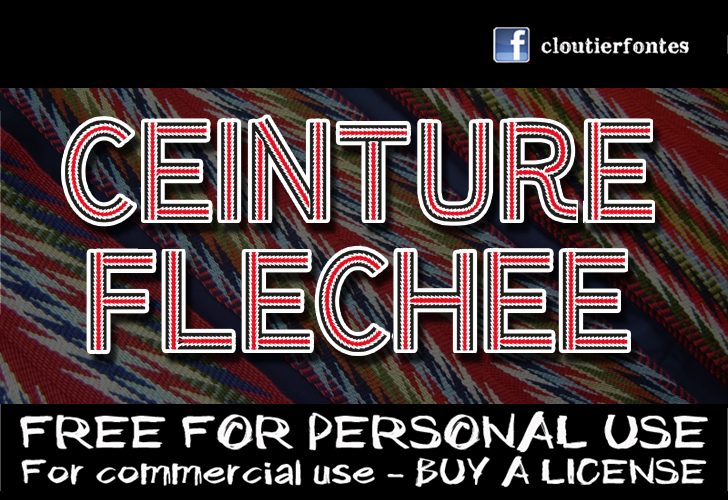
CF Ceinture Flechee by CloutierFontes is a free decorative display font whose broad outlined capitals contain dense rows of jagged chevrons. The repeating pattern resembles a woven band threaded through every stroke, with angled cuts that keep the interiors lively. Rounded letters soften the otherwise sharp ornament.
A heritage festival poster is its most convincing setting, since the textile-like detail can echo banners, crafts, and decorative borders. It also suits folk music packaging and event merchandise, where the letterforms can function as part of the pattern rather than neutral type. Restaurant branding and illustrated travel publishing offer further places for its rhythmic zigzags and generous curves.
CF Ceinture Flechee Regular is a font by CloutierFontes, designed by Steve Cloutier in 2013.